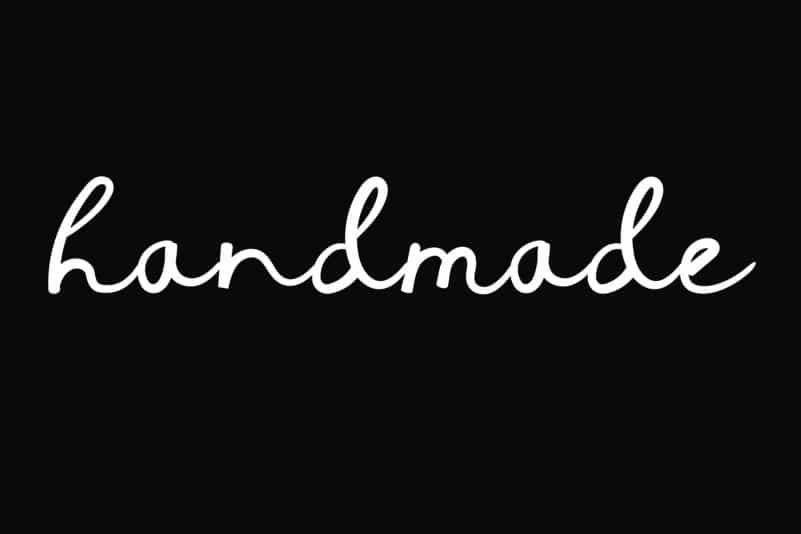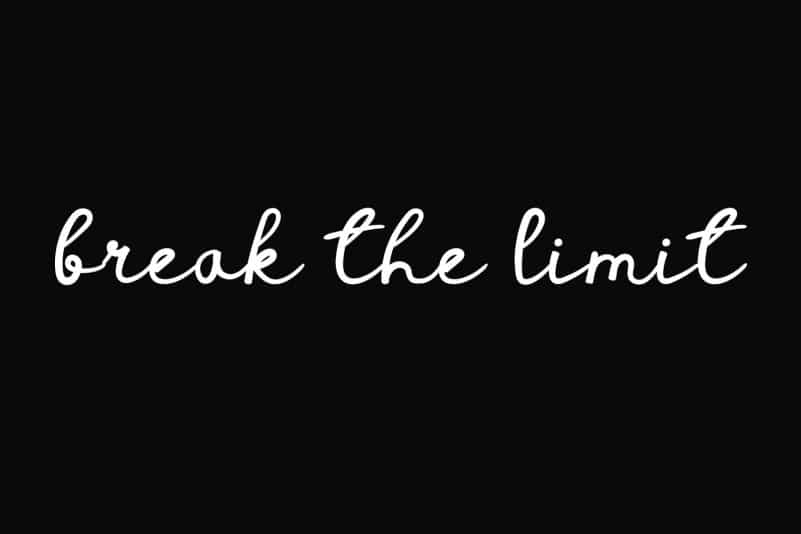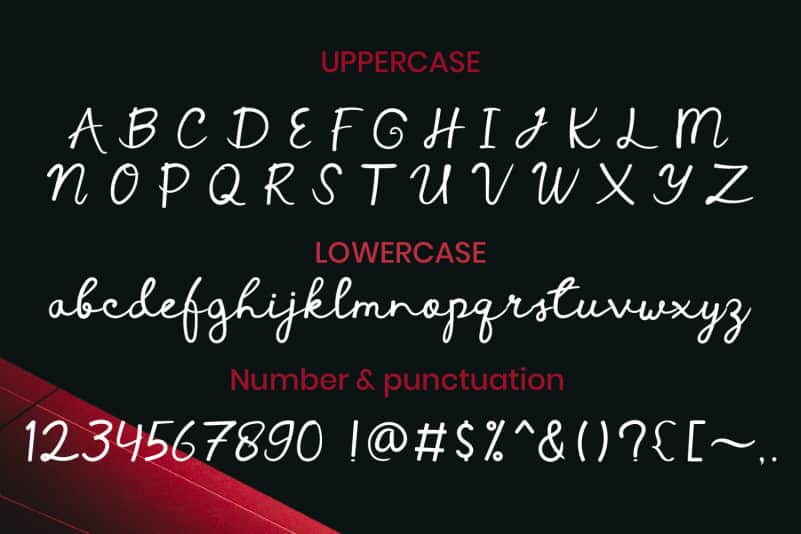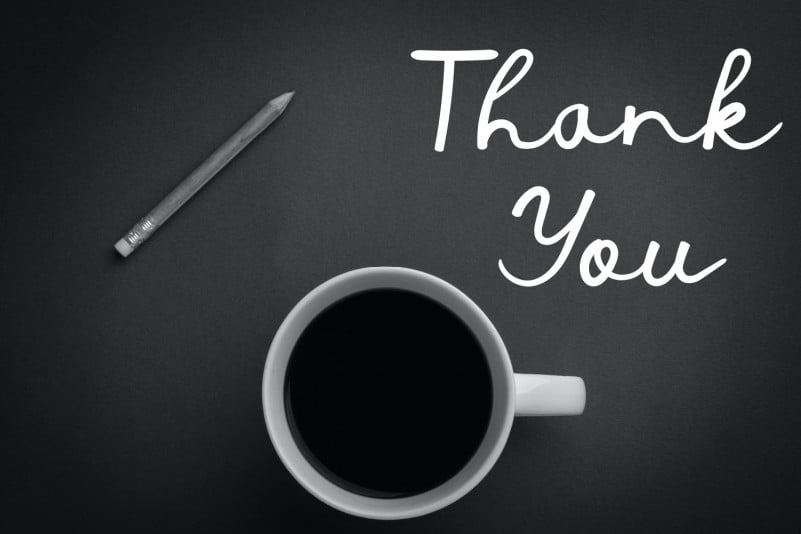
Vanneria Handwritten Font
Vanneria Handwritten Font is a sweet and delicate handwritten font. Its relaxed and timeless feel makes it fitting to a wide pool of contexts. Fall in love with its incredibly versatile style and use it to create spectacular designs!